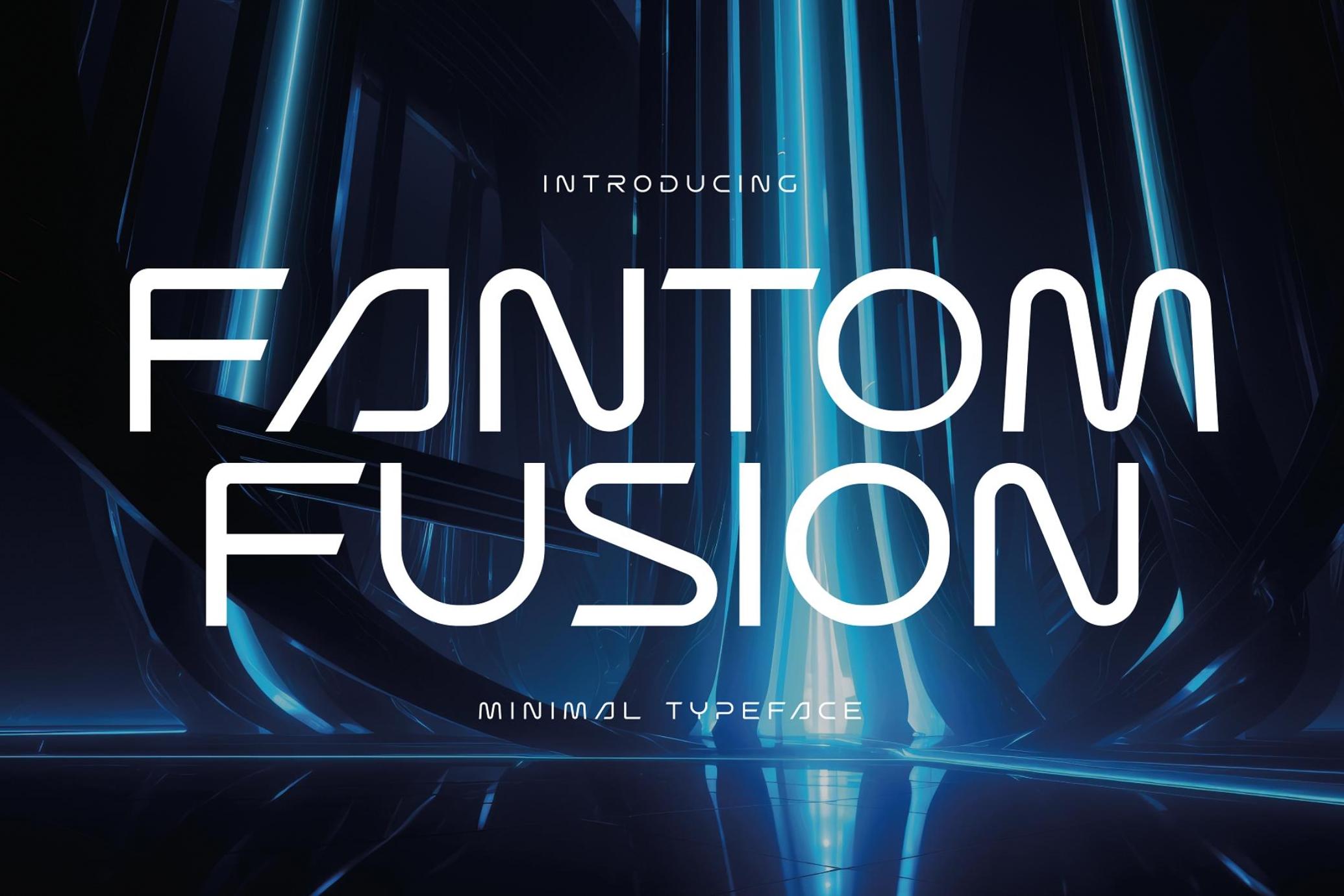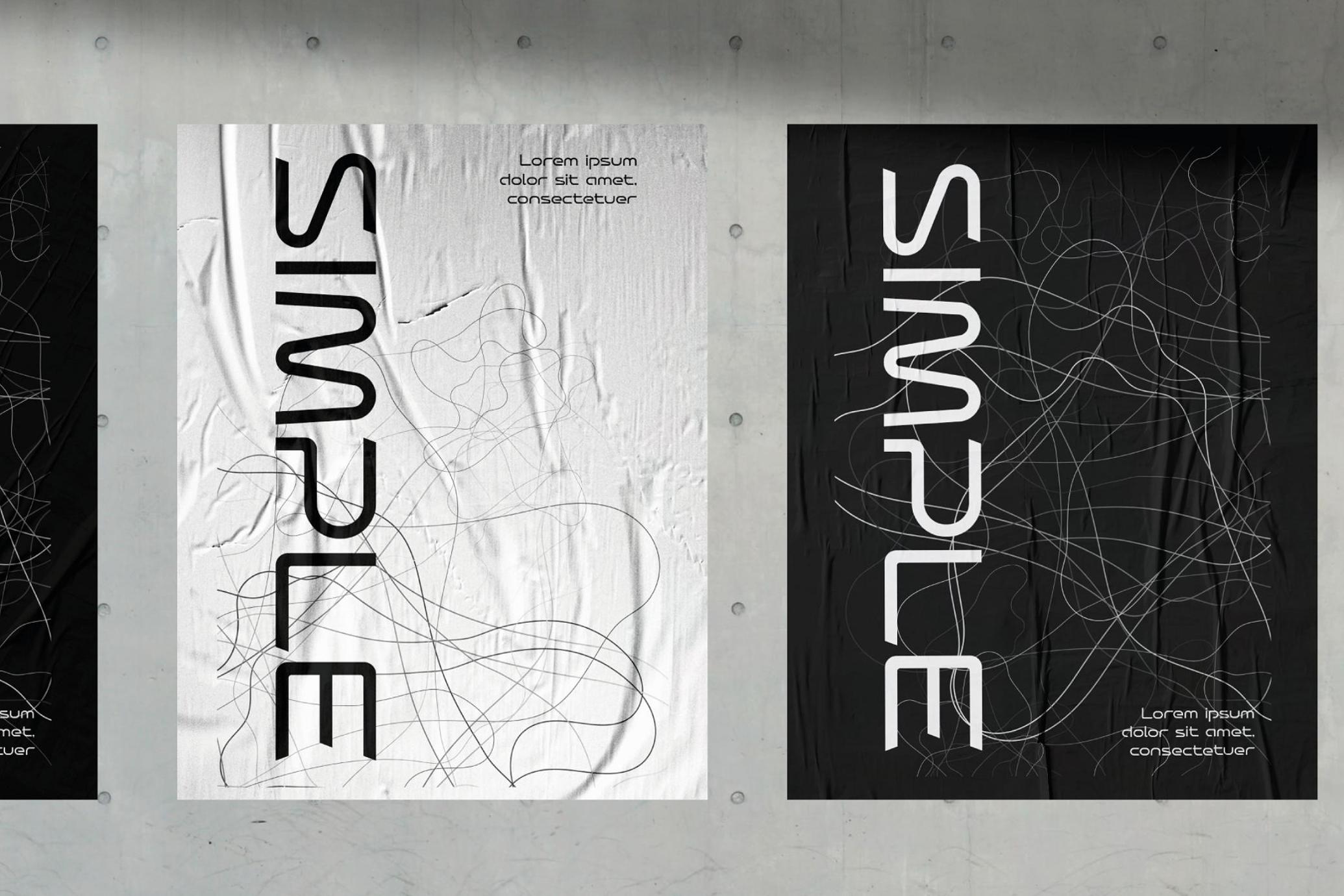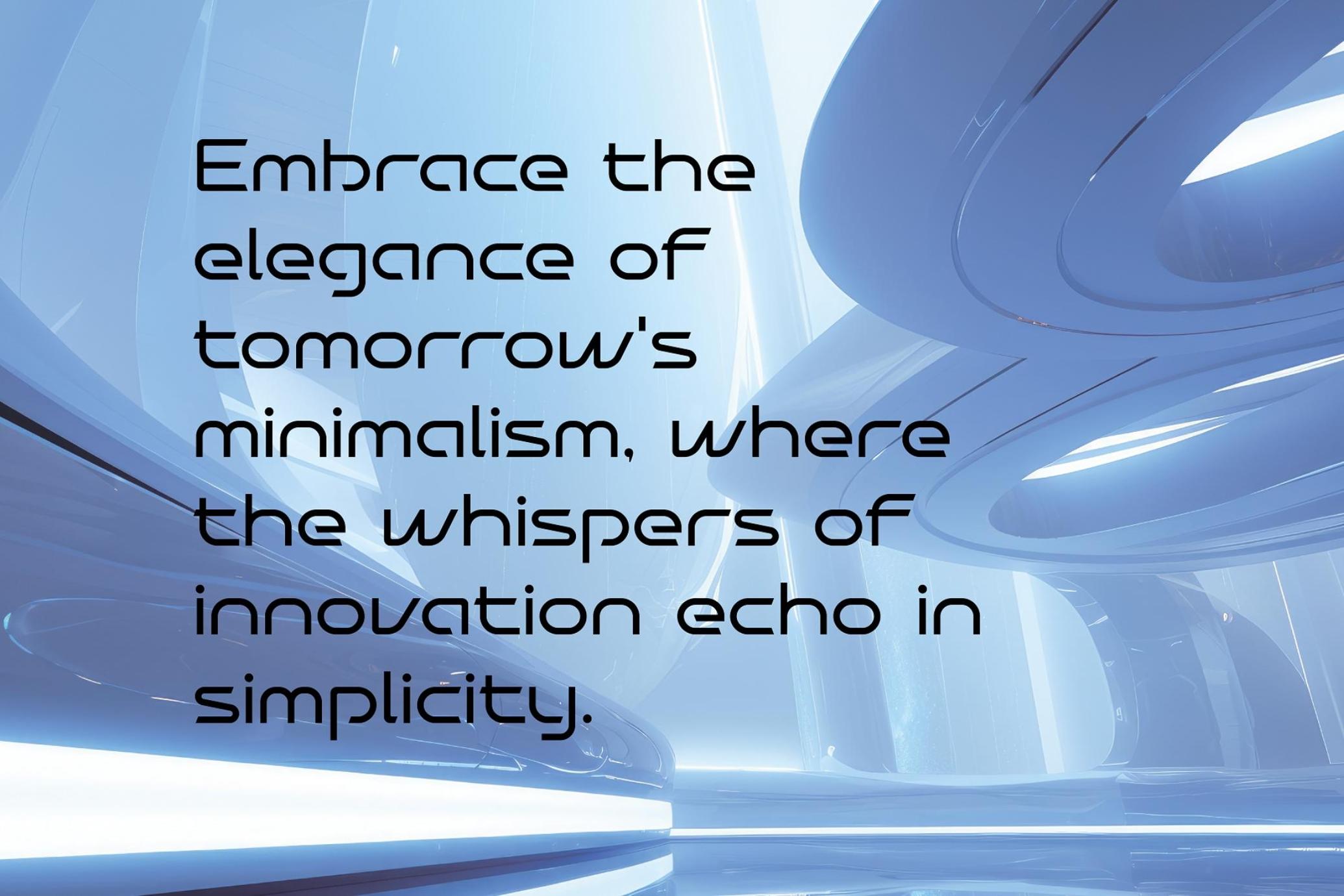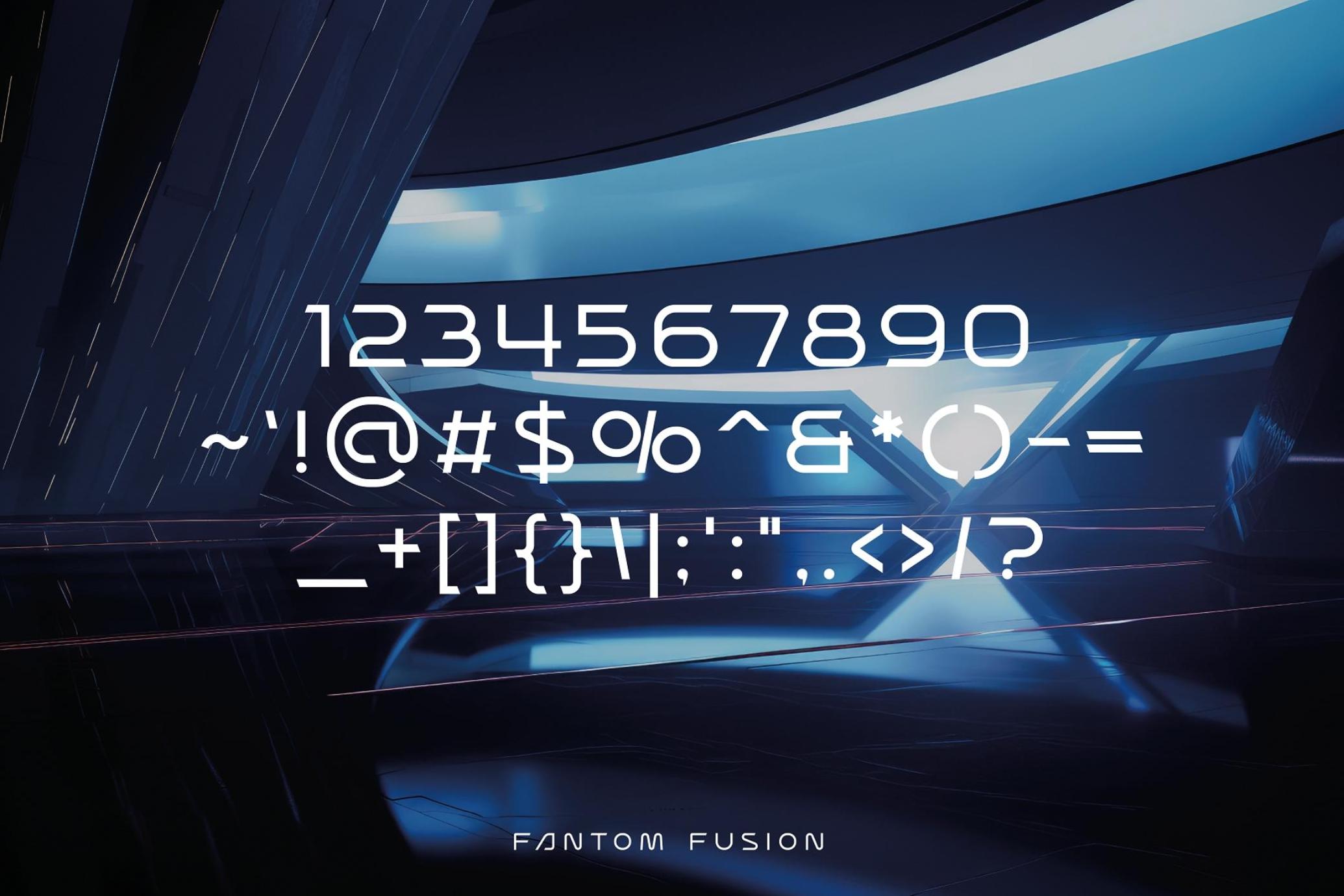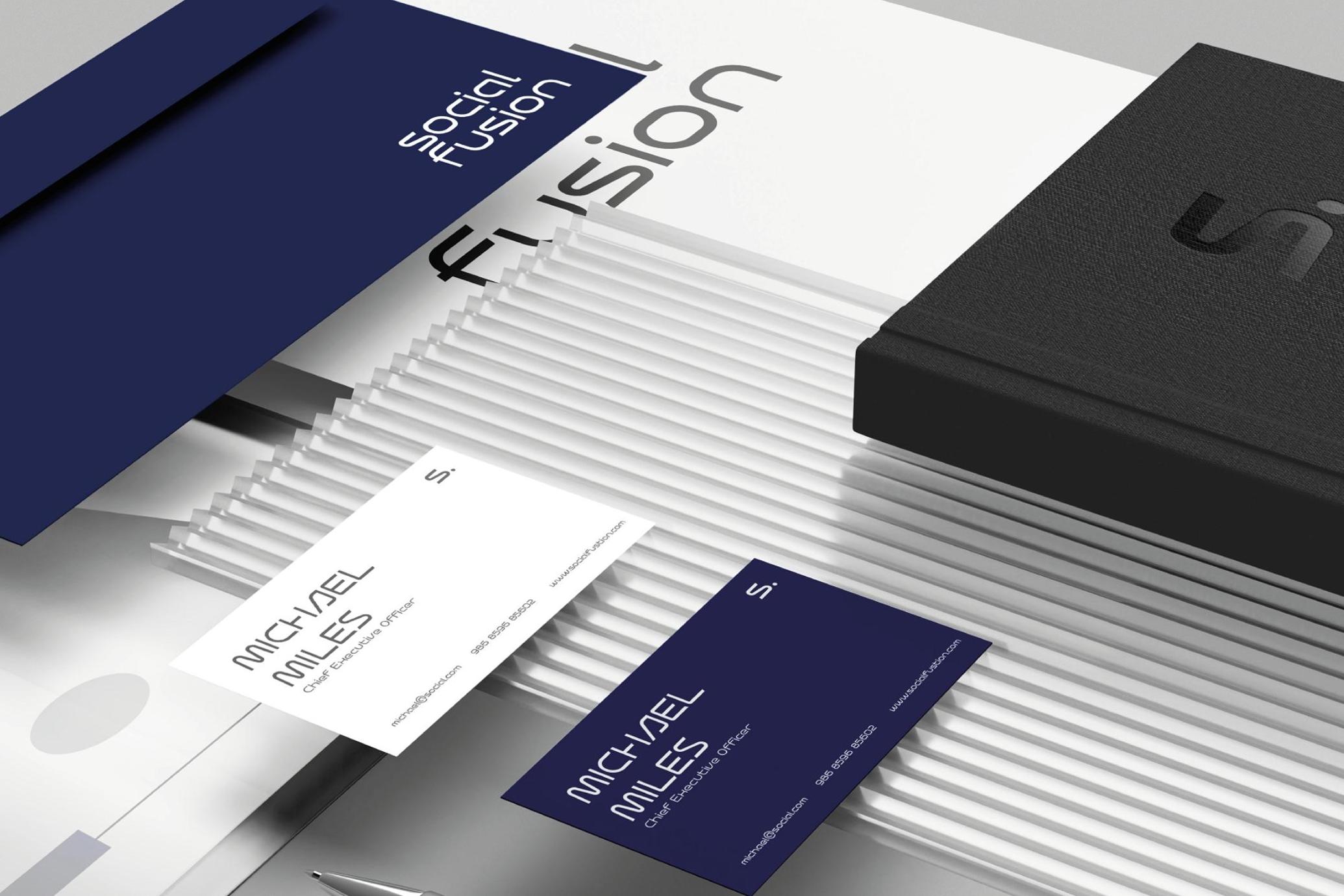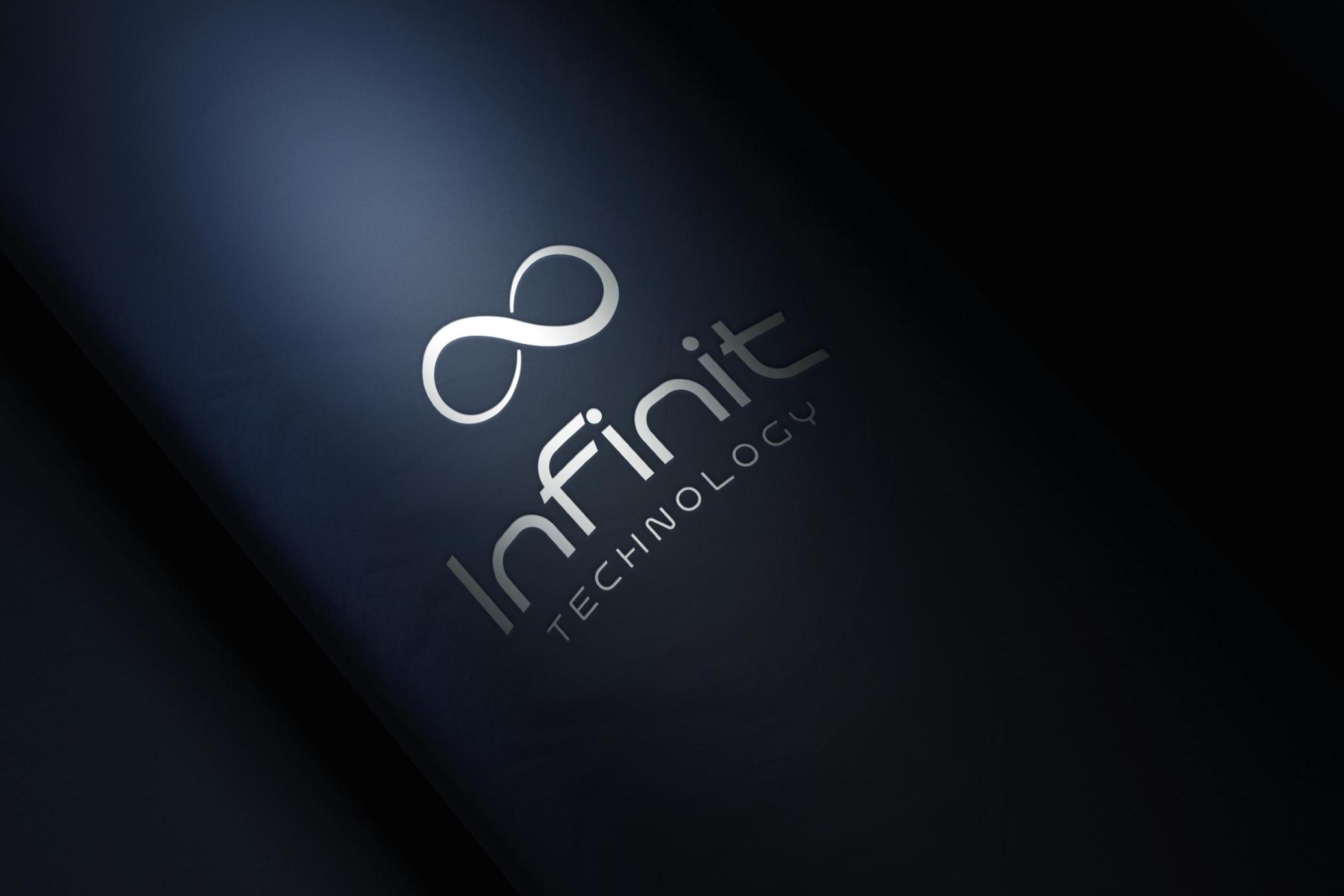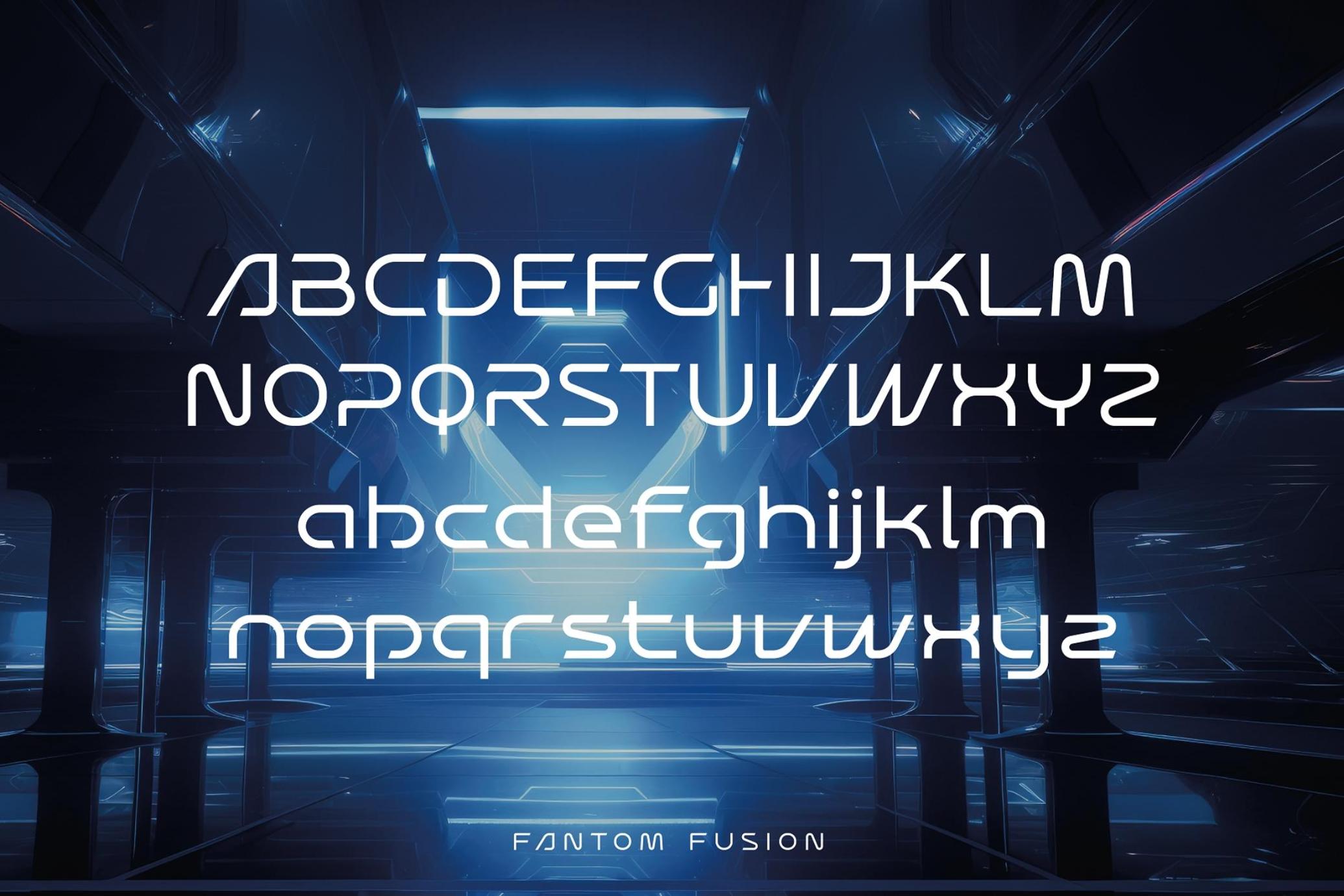
Fantom Fusion - Minimal Typeface
Fantom Fusion emerges as a groundbreaking addition to the typographic landscape, encapsulating a vision of the future in its very form. This typeface is an amalgamation of clean aesthetics and futuristic minimalism, creating a visual harmony that's both striking and soothing to the eye. With its sleek and uncluttered design, Fantom Fusion goes beyond mere letters on a page - it's an embodiment of innovation and modernity, designed for the digital age and beyond.
Each character in Fantom Fusion is crafted with a meticulous eye for detail, resulting in a typeface that balances artistic beauty with functional clarity. The minimalist approach strips away the superfluous, leaving only the essence of each letter, a testament to the beauty of simplicity. This clean and refined style makes Fantom Fusion not just a typeface, but a statement piece, perfect for brands and designs that aim to stand out with a contemporary and forward-thinking edge.